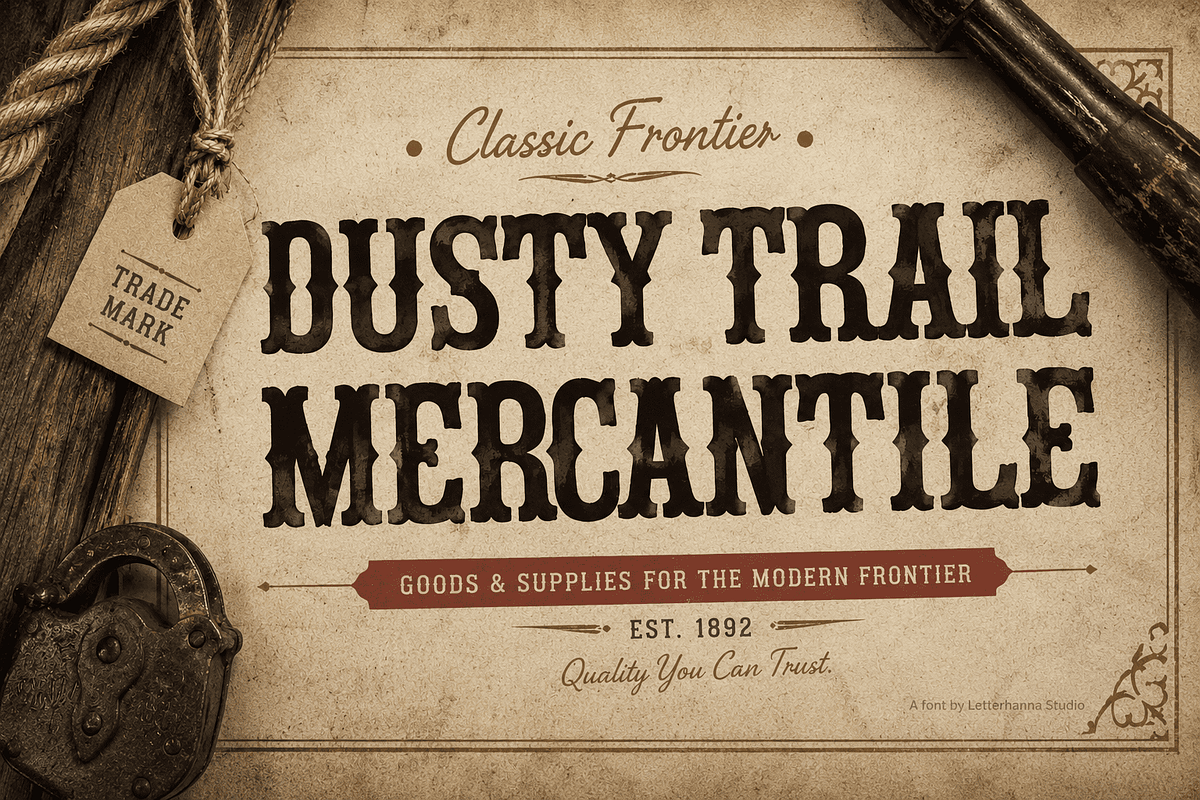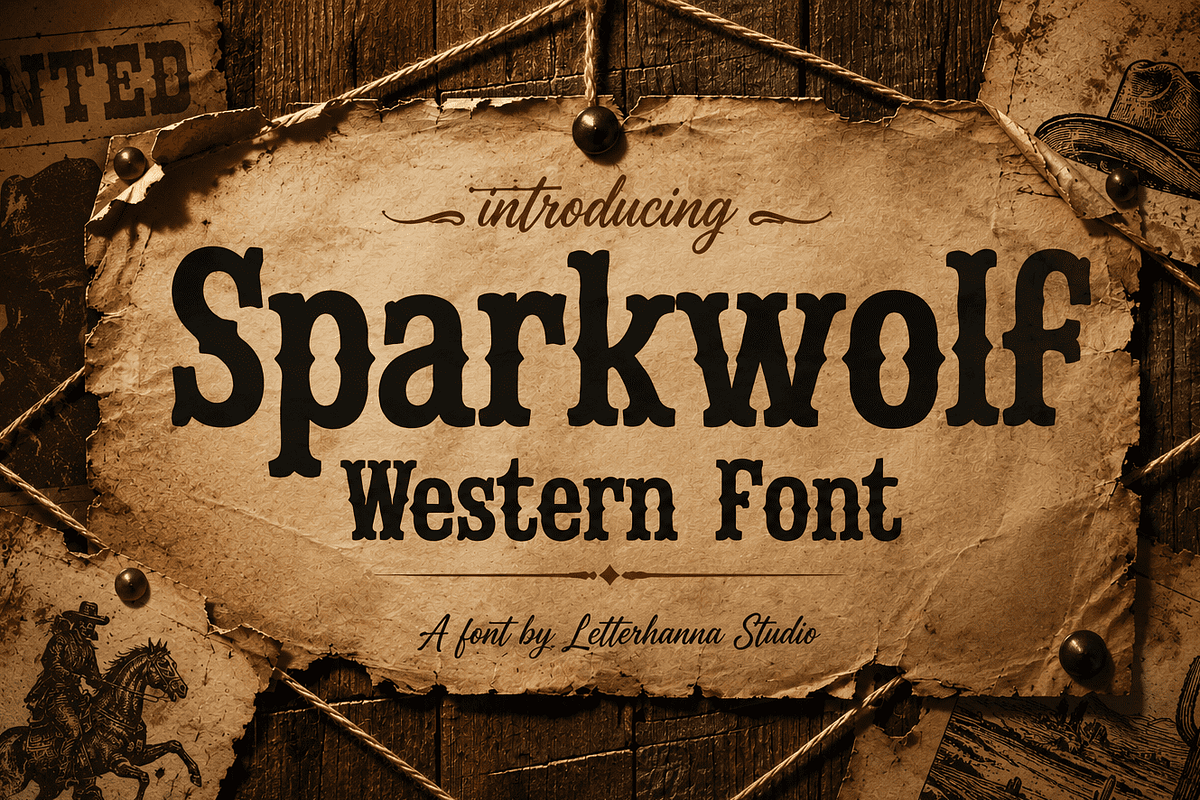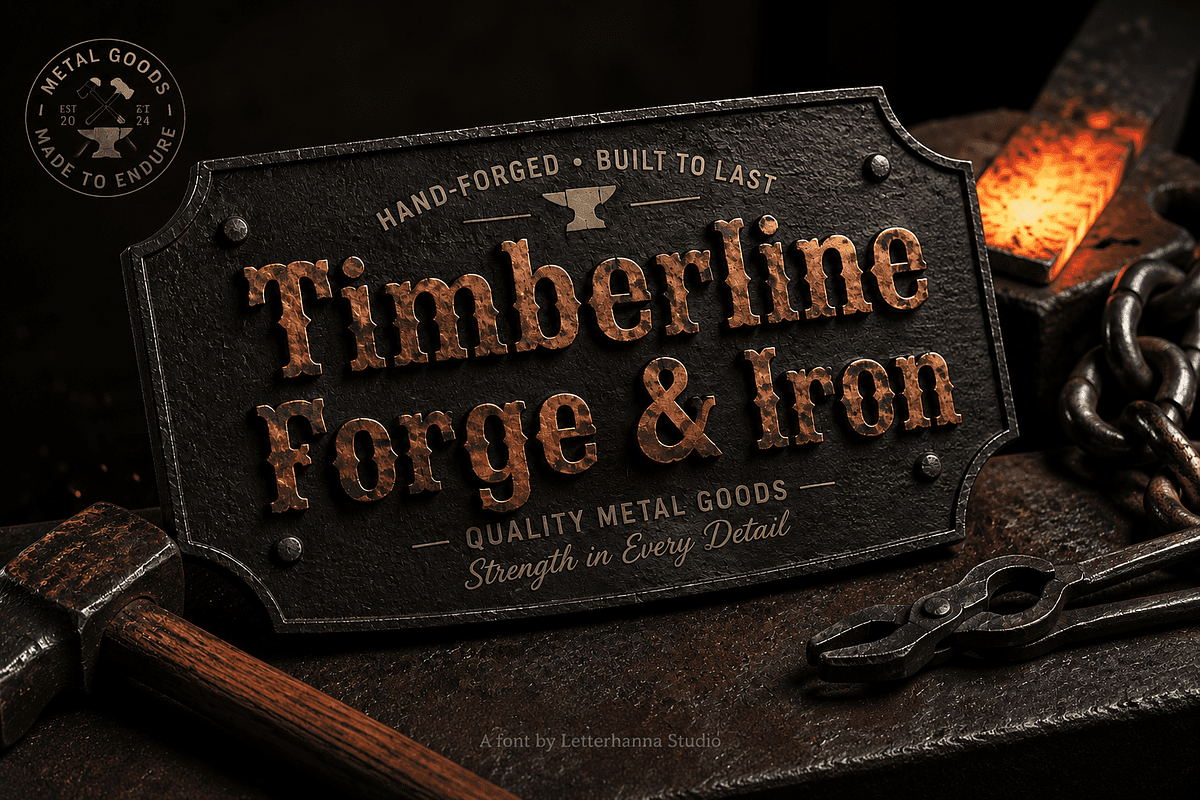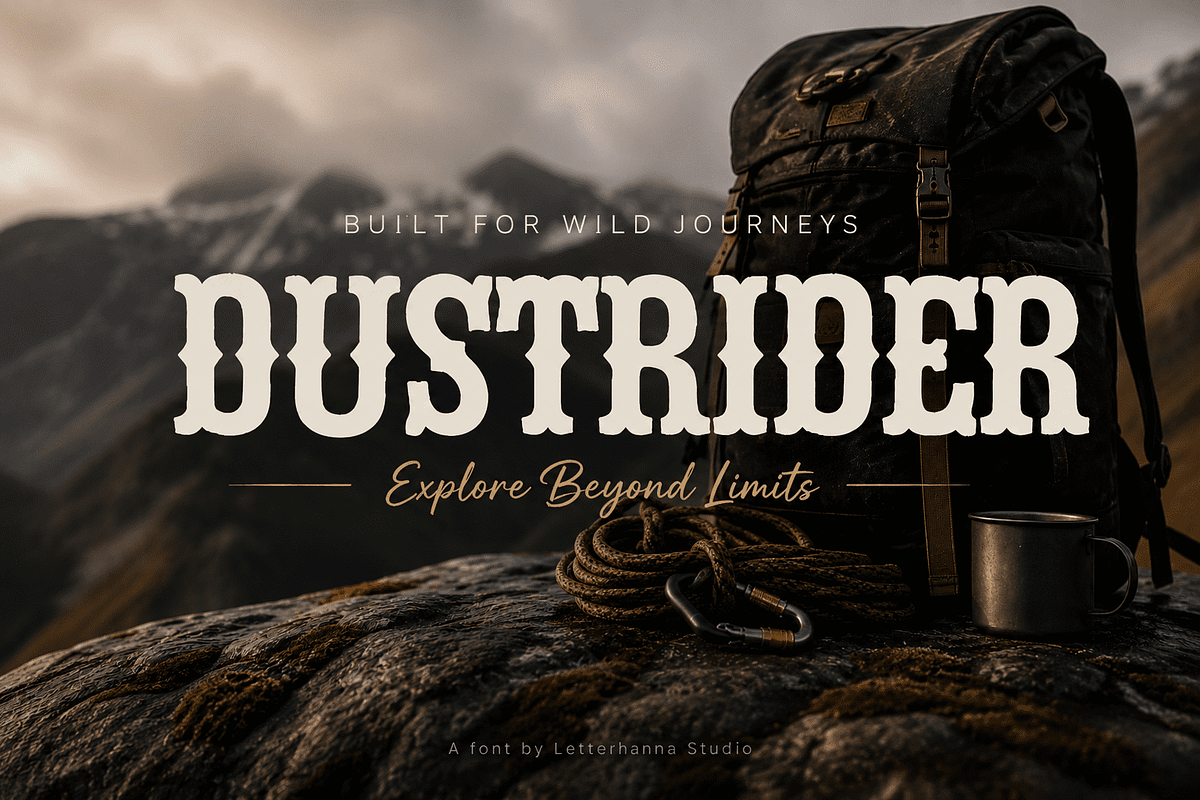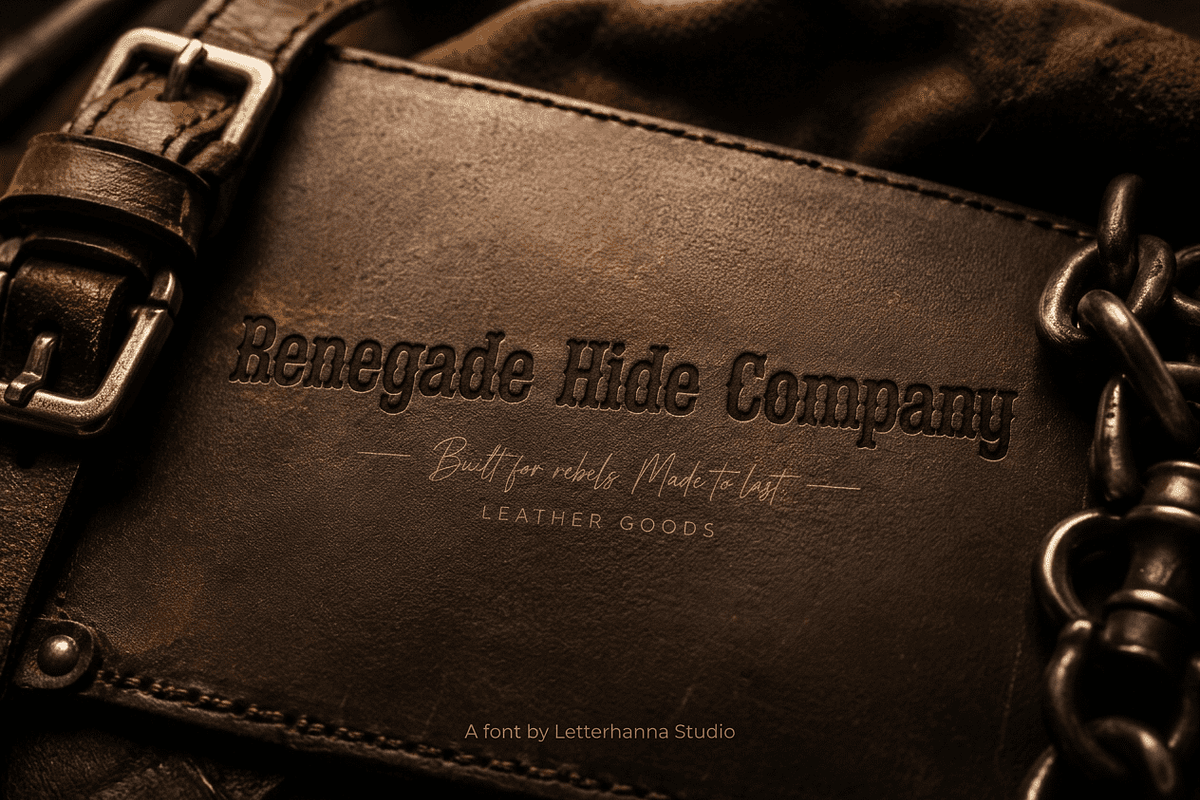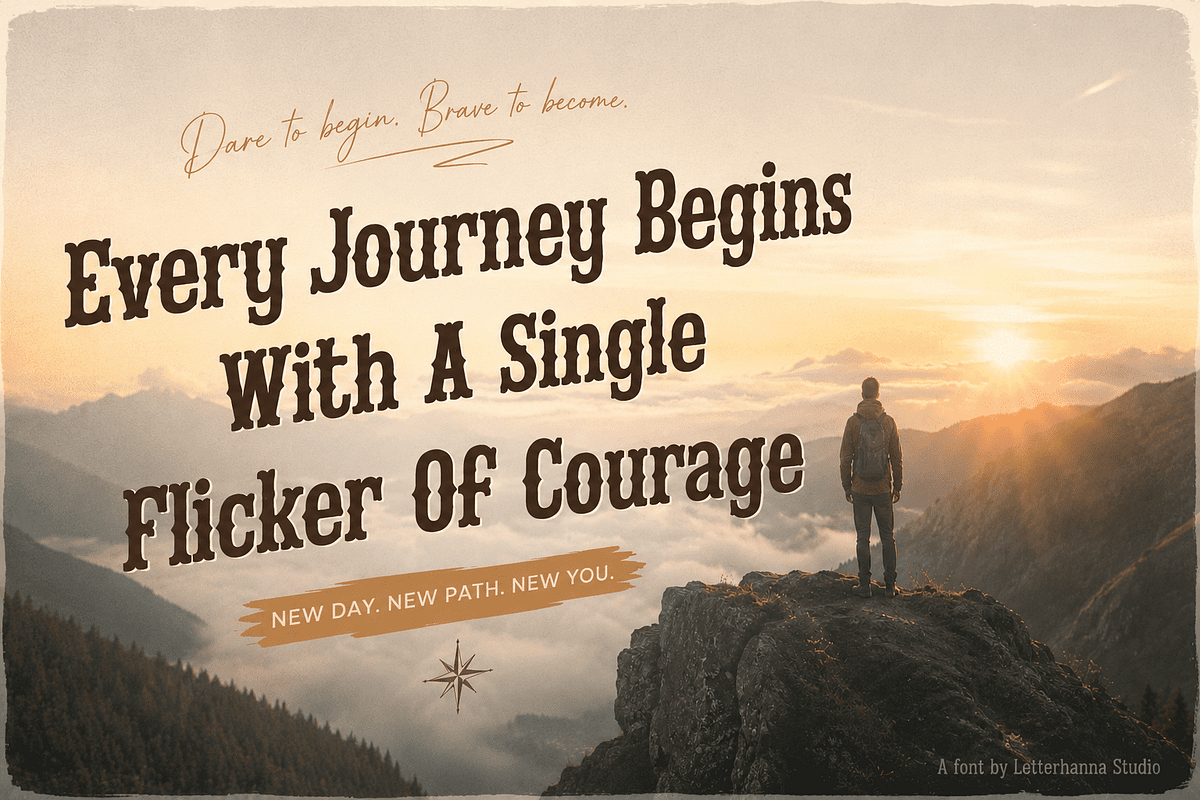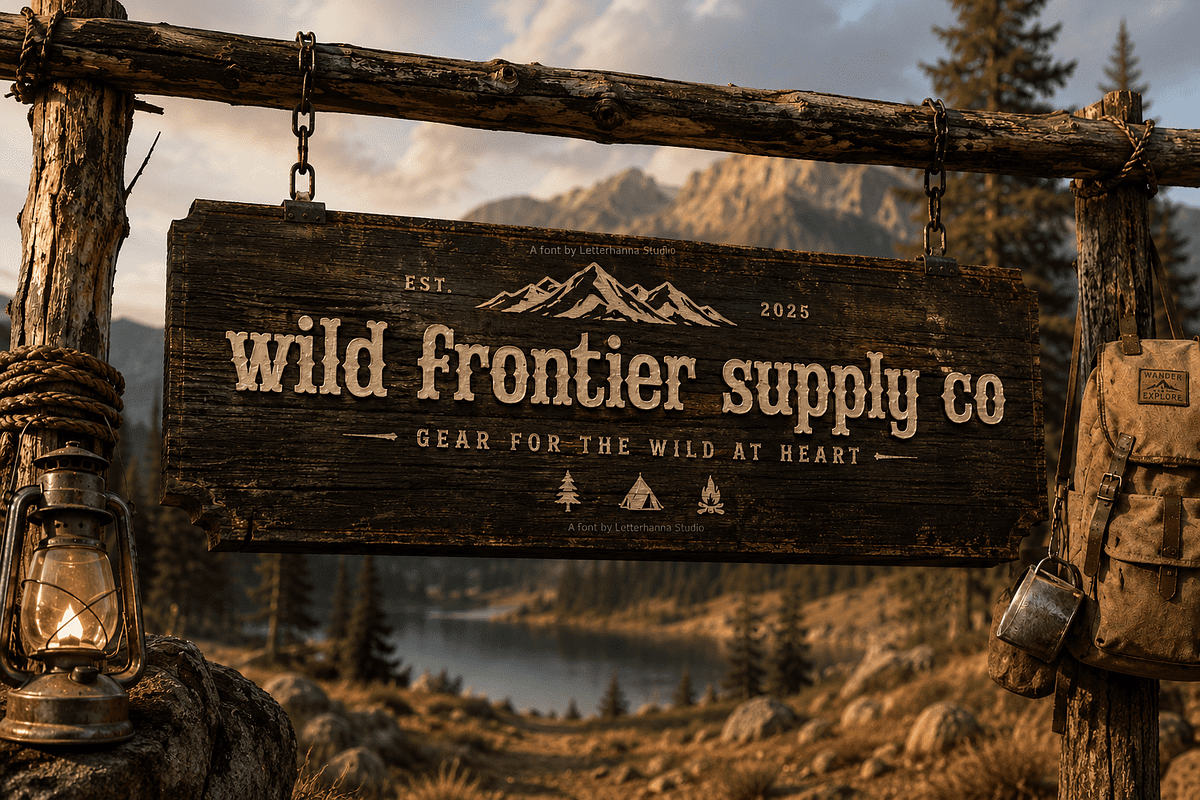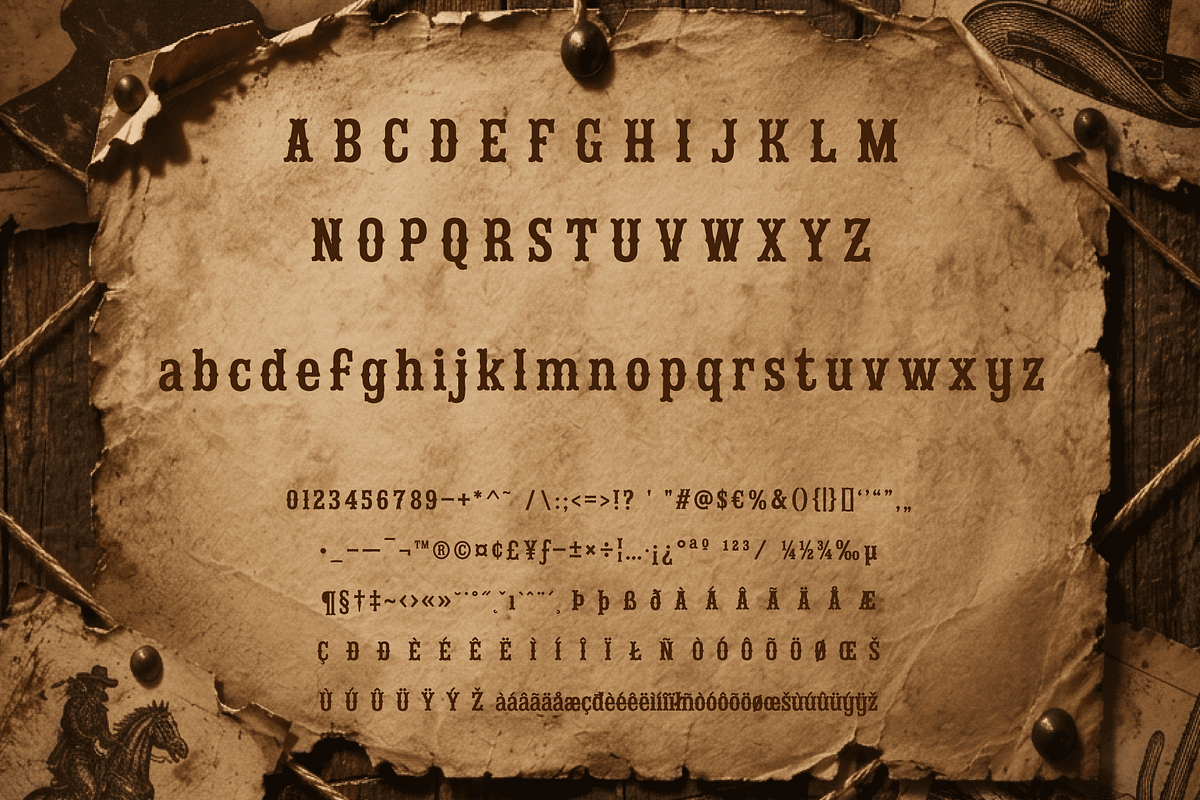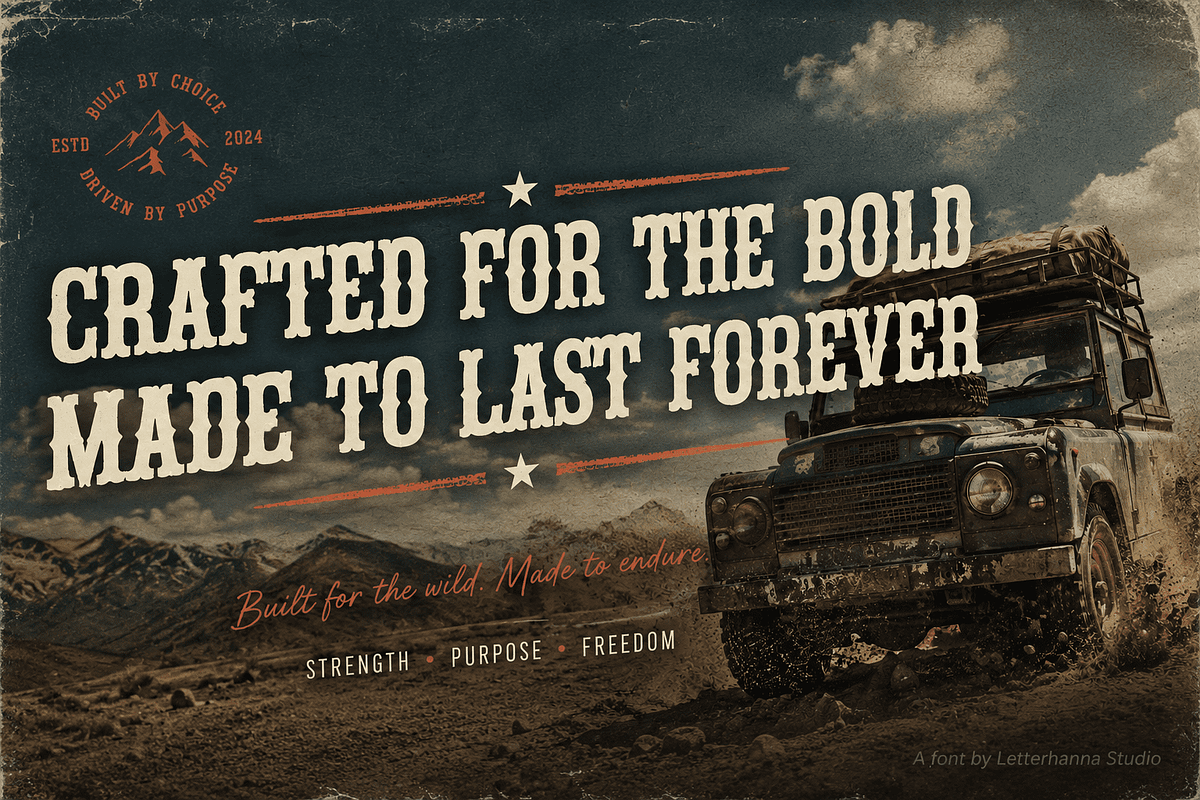
Sparkwolf: A Wanted Poster Font
There's a certain magic in fonts that feel like they've survived something — sun, dust, decades of use. Sparkwolf is exactly that kind of typeface.
Built as a bold slab serif with thick, confident strokes and wedge-shaped serifs, Sparkwolf channels the raw energy of old frontier print shops. Picture a wanted poster nailed to a wooden post, a saloon sign creaking in the wind, or a leather-bound ledger filled with faded ink. That's the world this font was made for.
The uppercase letters stand tall, monumental, and commanding — perfect for headlines that need to grab attention instantly. The lowercase keeps a tighter, more compact rhythm, giving the font a hardworking, hand-set quality that feels authentic rather than digitally polished.
This isn't just another bold display font. Sparkwolf is a full mood — part outlaw western energy, part vintage storytelling tool. It's built for designers, small business owners, and creatives who want their work to carry real narrative weight.
Where does it shine? Whiskey and craft beer labels. Leather goods branding. Western apparel and rodeo event materials. Rustic wedding invitations. Ranch and homestead logos. Film posters chasing that gritty frontier aesthetic. Wanted-poster novelty designs. Anywhere you want instant history and character.
Beyond its striking look, Sparkwolf is built with usability in mind — strong at small sizes, legible even when stylized, and versatile across both print and digital formats.